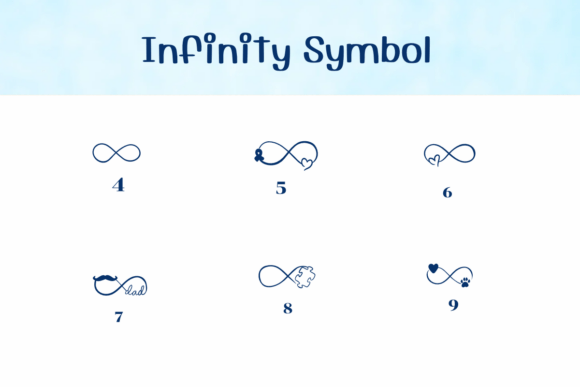
Infinity Symbol Font
Infinity Symbol is a meaningful dingbats font featuring a collection of elegant infinity loop designs—each incorporating heartfelt words and symbols like hearts, wings, stars, and awareness ribbons. Perfect for sentimental crafting, tattoos, vinyl cutting, memorial projects, or personalized gifts, this font turns the timeless infinity shape into a touching visual message of love, hope, and connection.